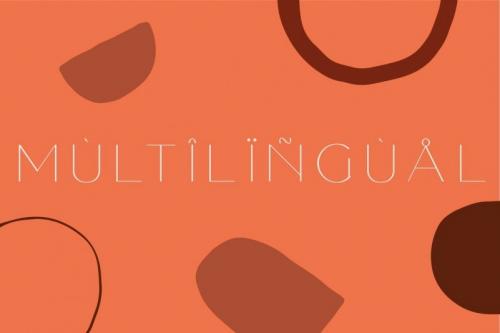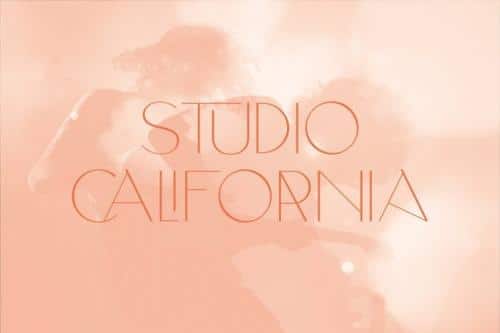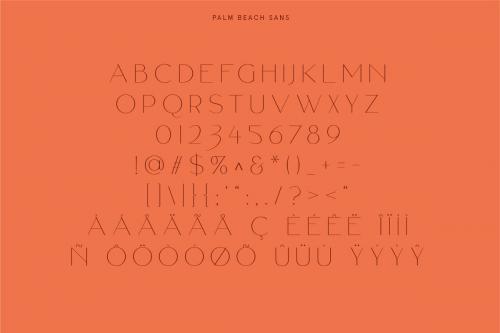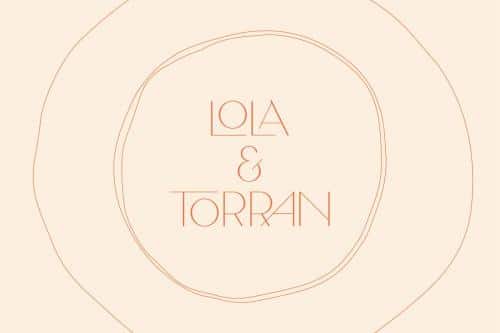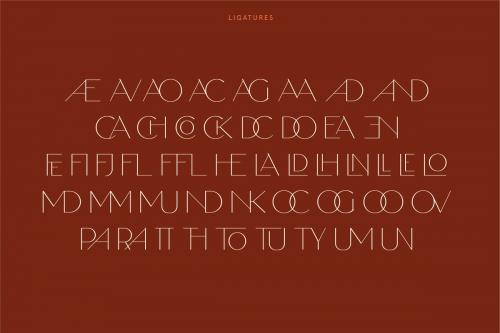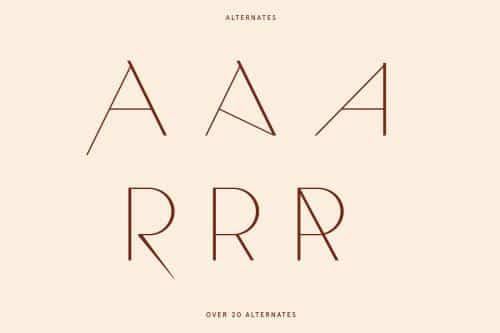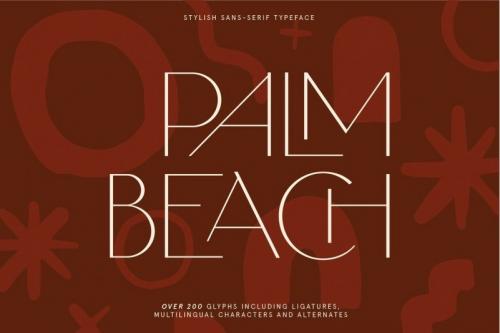
Palm Beach Font is a new handmade font with tons of cool characters, symbols, and unique styles, designed by Studio Aurora.
Palm Beach Handmade Sans Font is perfect for quotes, logos, apparel, advertising, wedding invitations and packaging design.